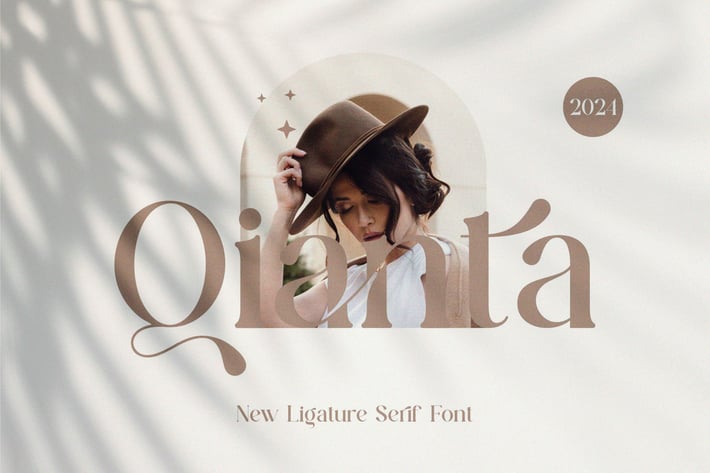
Qianta || Ligature Serif Font
Qianta is a balanced, smooth, elegant and stylish serif font. It has a beautiful character. It is perfect for combining with invitation card designs, company logos, movie titles, movie names, business cards, book titles, brand names and various other designs. Qianta Serif is a smooth serif font that exudes sophistication and elegance. Its stylish alterations and ligatures make this font a perfect partner for any project.
- Uppercase and lowercase
- Numbering and Punctuation